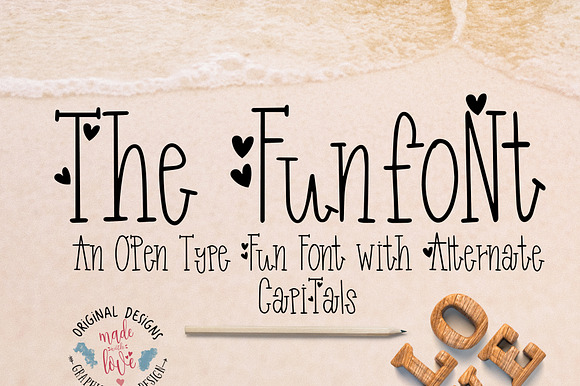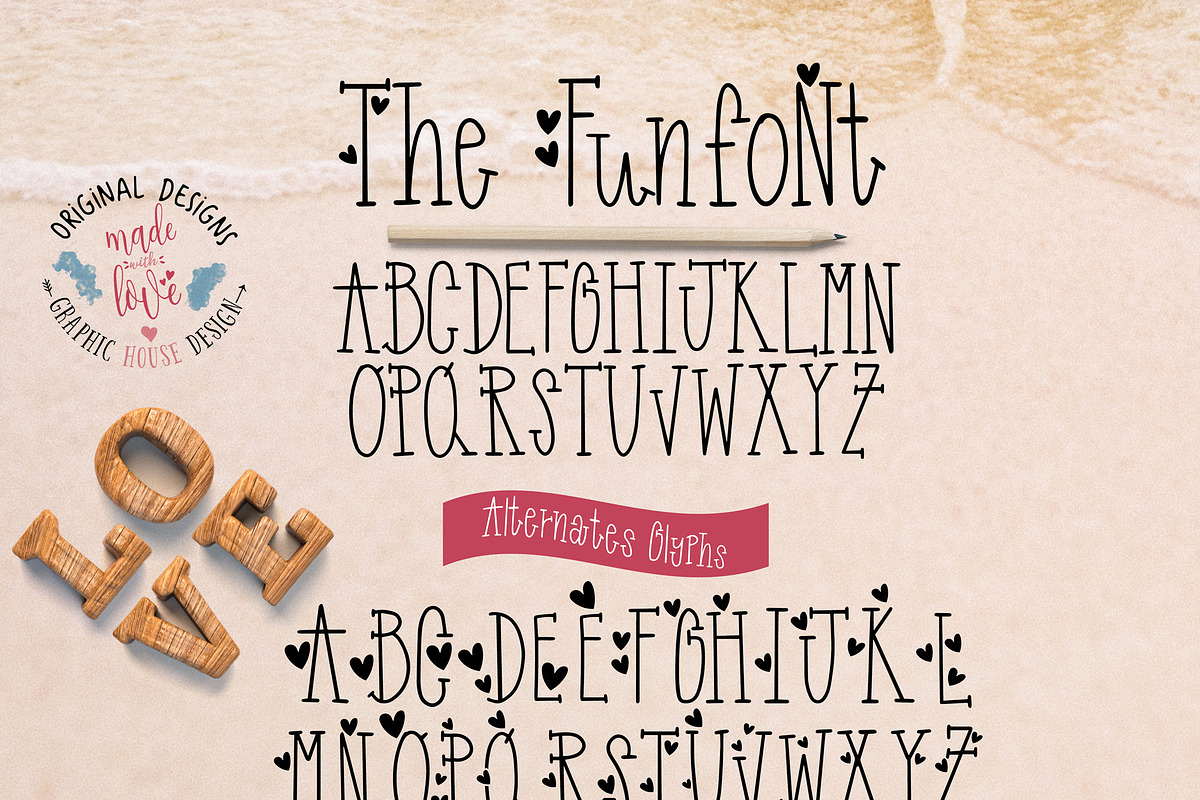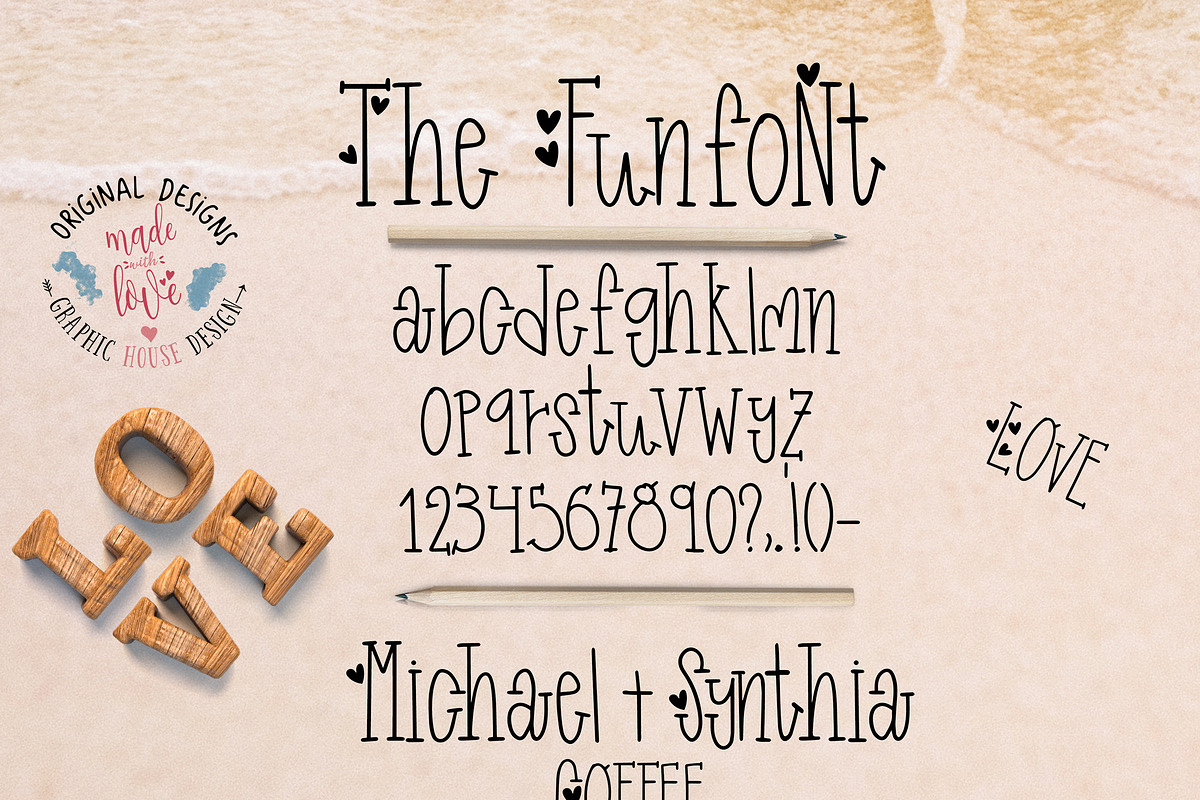
Funfont Modern Playful Cute Font
Funfont is a Modern hand lettered Serif Font with a tall x-height and a playful cute character. Contains small letters, capitals and numbers. It also has a set of alternate Capital Letters which can be accessed through the Glyph Panel or Character Map.
- Contains small letters, capitals and numbers.
- It also has a set of alternate Capital Letters which can be accessed through the Glyph Panel or Character Map.